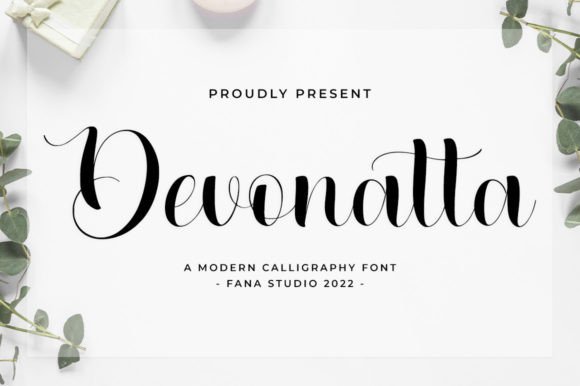
Step into the realm of elegance and sophistication with Devonatta Script, a mesmerizing handwritten font crafted to elevate your creative projects to new heights. Experience the allure of this captivating font, meticulously designed to add a touch of personal charm and exclusivity to your work.
Immerse yourself in the beauty of Devonatta Script, a font that dances across the page with grace and fluidity. Its meticulously crafted characters, reminiscent of a skilled calligrapher's hand, exude a timeless charm that will leave an unforgettable impression.
With Devonatta Script, your designs will radiate a sense of luxury and refinement. Its elegant curves and delicate flourishes evoke a sense of sophistication that's perfect for creating stunning logos, branding materials, invitations, and wedding designs. Each letterform is a work of art, ensuring that your creations stand out from the ordinary.
Unlock your creativity and let Devonatta Script guide you to design masterpieces. Whether you're crafting social media posts, advertisements, product packaging, or labels, this font will add a touch of magic to your work. Its versatility extends to photography, watermarks, special events, and any project that demands a handwritten touch.
Devonatta Script is the ultimate choice for designers, artists, and creative professionals who seek to make a statement. Its timeless beauty and versatility make it a must-have font for anyone looking to add a touch of elegance and sophistication to their creative endeavors. Embrace the allure of Devonatta Script today and let your designs blossom with grace and charm.